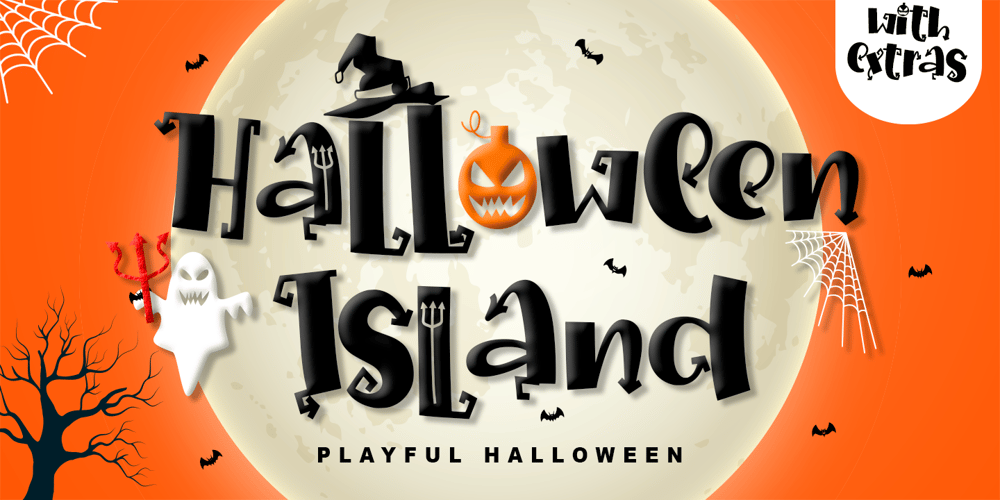
Halloween Island Font Family was designed by Thomas Aradea and published by Letterara. Halloween Island contains 3 styles and family package options. Halloween Island is a unique and bold lettered decorative font. This font comes with cool extras. Add it to your creative Halloween-themed ideas and notice how it makes them stand out! This font is PUA encoded which means you can access all of the glyphs.